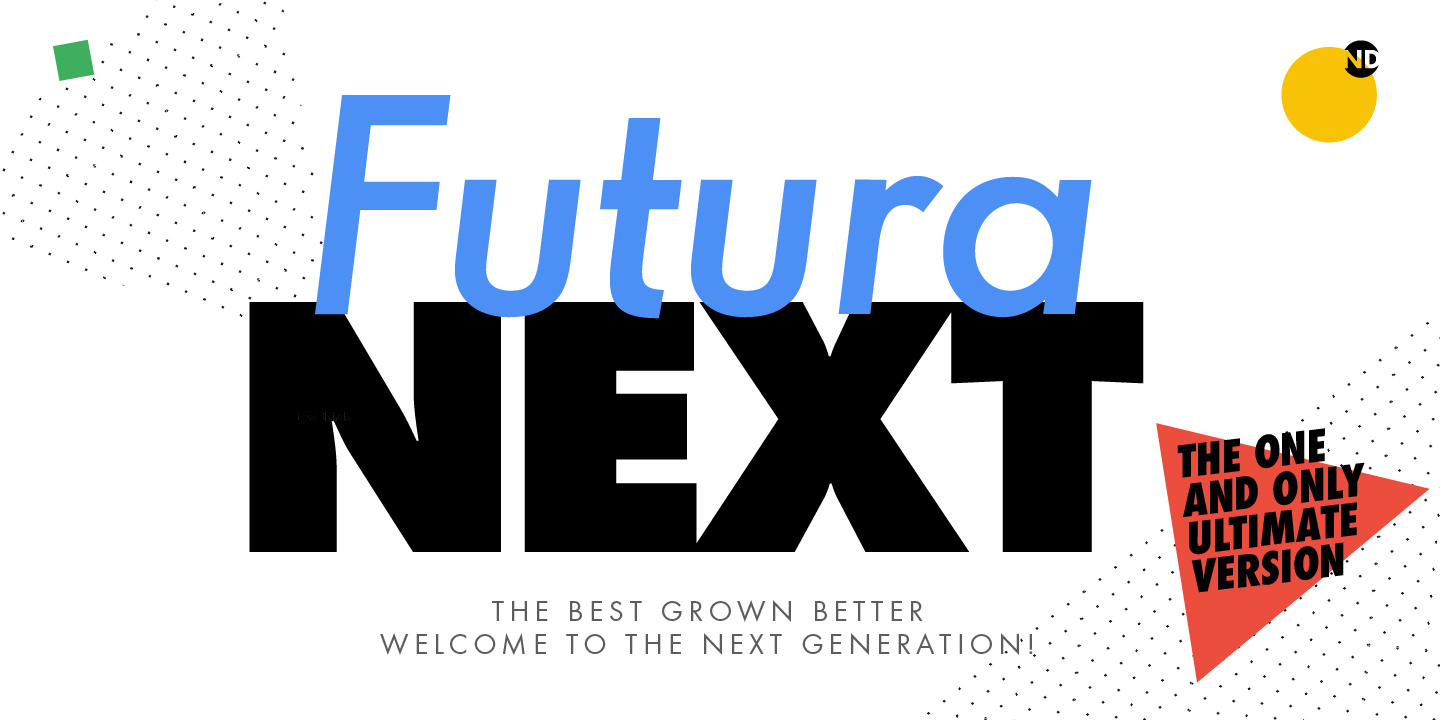
Please note, you must purchase this font for commercial use. You can download Futura Next Font Free Download for testing purposes and explore its modern, clean design. Futura Next Font is perfect for contemporary branding, editorial projects, digital interfaces, and any design that requires a sleek, minimalist look.
With its geometric shapes and precise structure, Futura Next Font brings a sharp, modern aesthetic to your designs. It's ideal for logos, headlines, corporate materials, and web content that demand clarity and style.
Futura Next Font Free Download supports multilingual characters, making it suitable for global projects. Its legible design ensures readability across both print and digital formats, making it versatile for a variety of applications.